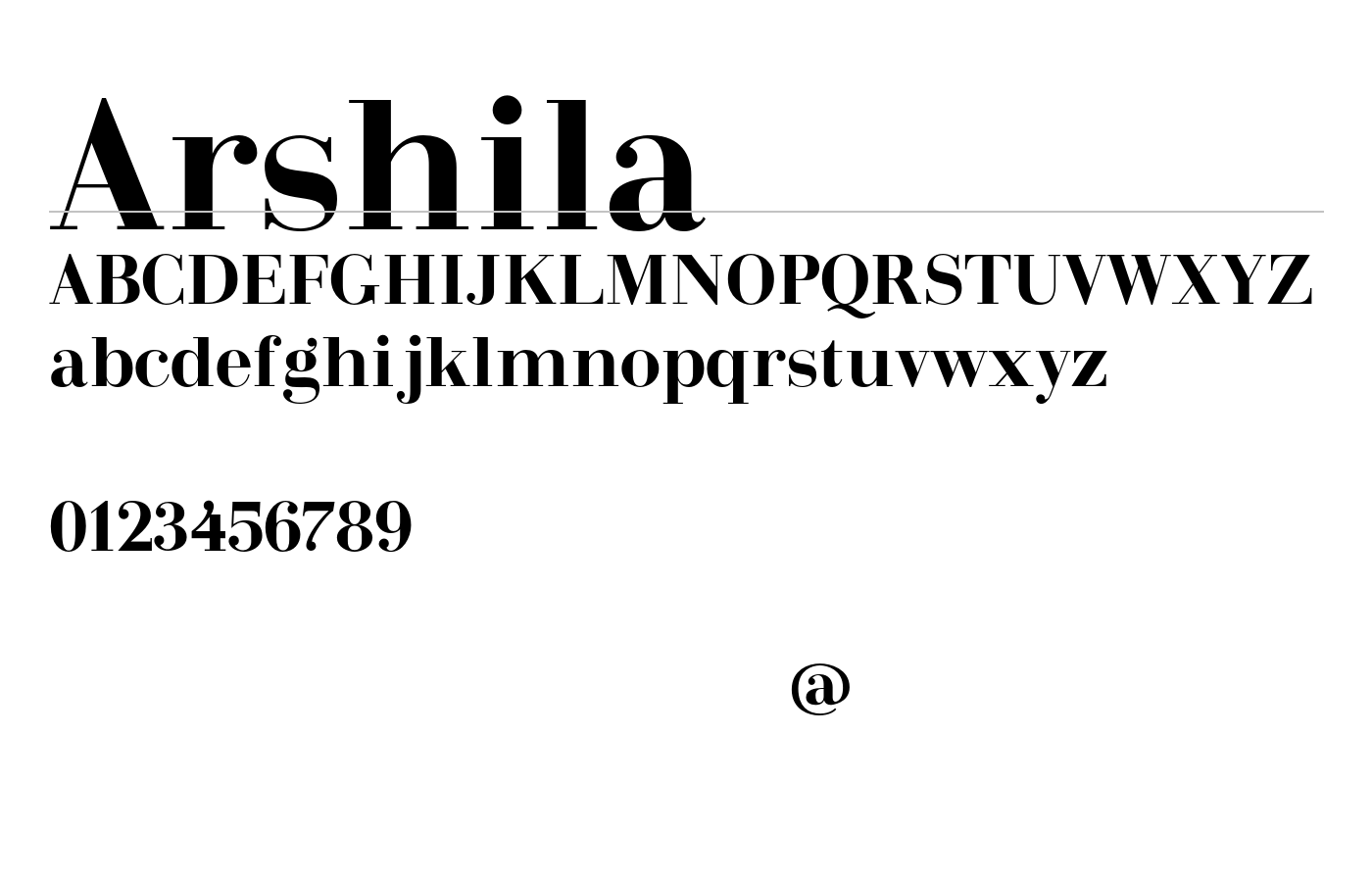
Arshila is a sophisticated serif font characterized by its high contrast between thick and thin strokes and elegant bracketed serifs, giving it a classic, refined appearance. With its moderate x-height and distinct, stylish letterforms, it is ideal for upscale branding, editorial headlines, and luxury packaging where a timeless yet striking impression is desired. This font’s graceful balance of modern sharpness and traditional detail makes it perfect for designs needing a touch of elegance and authority.
Arshila Font
About Arshila Font
| Font family | Arshila Font |
| Designer | Dede Kurniawan |